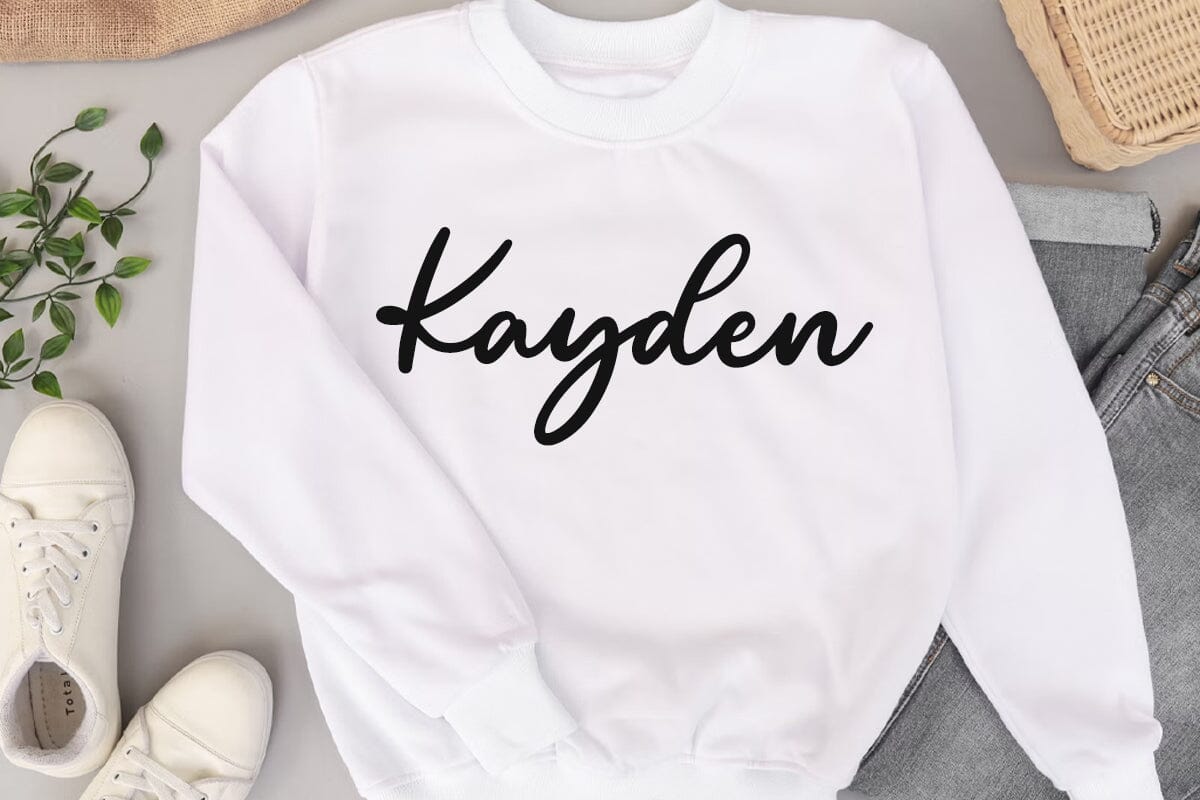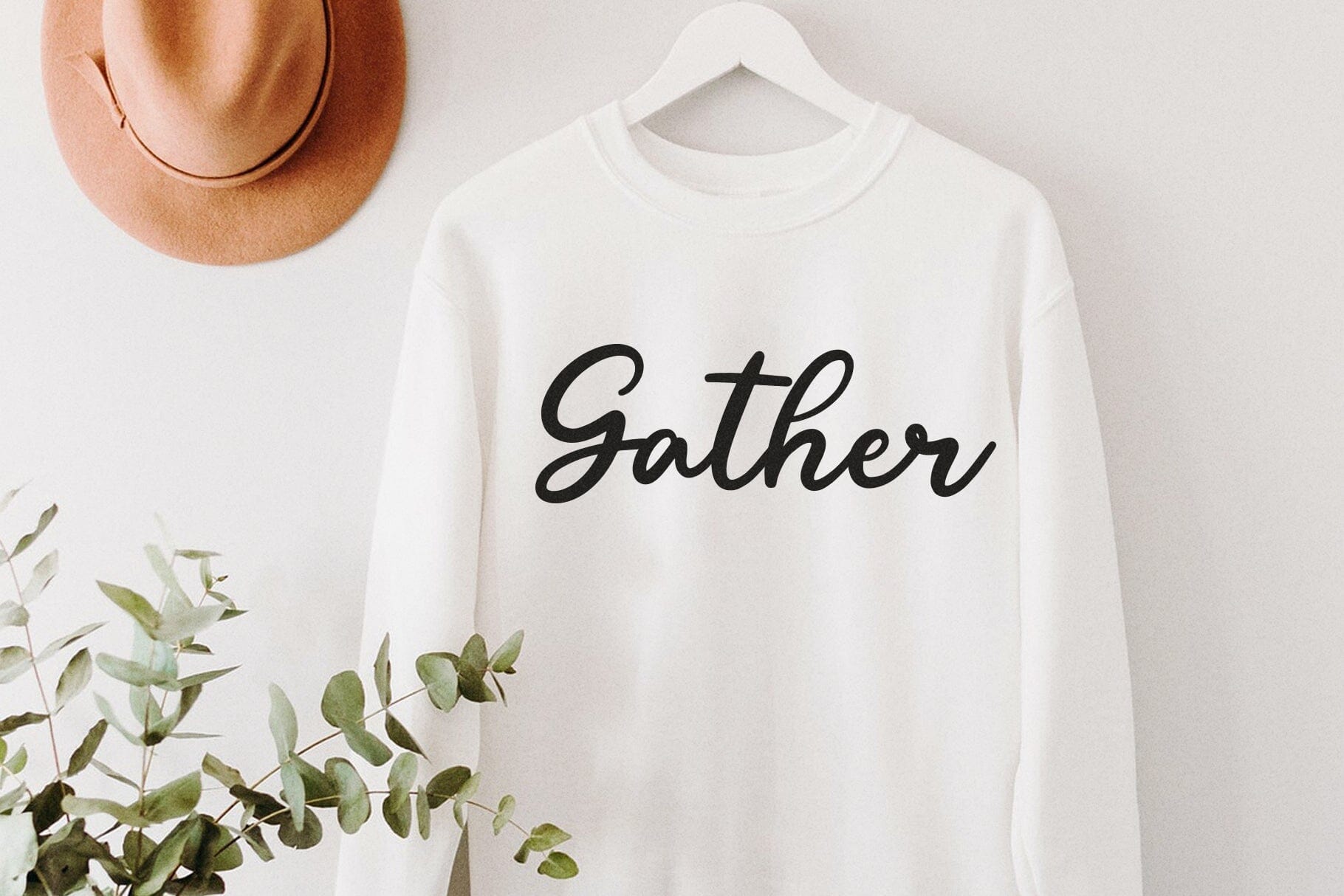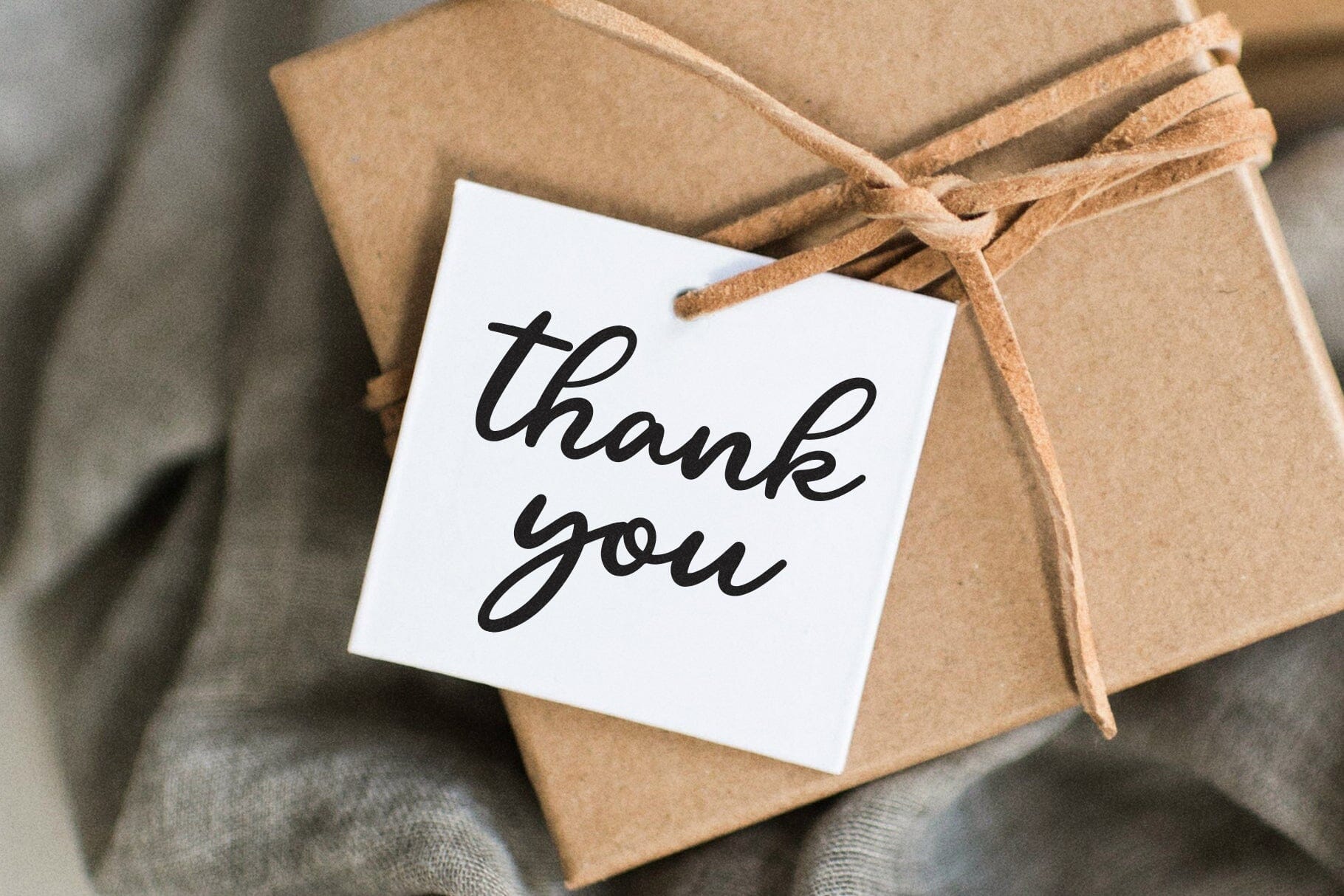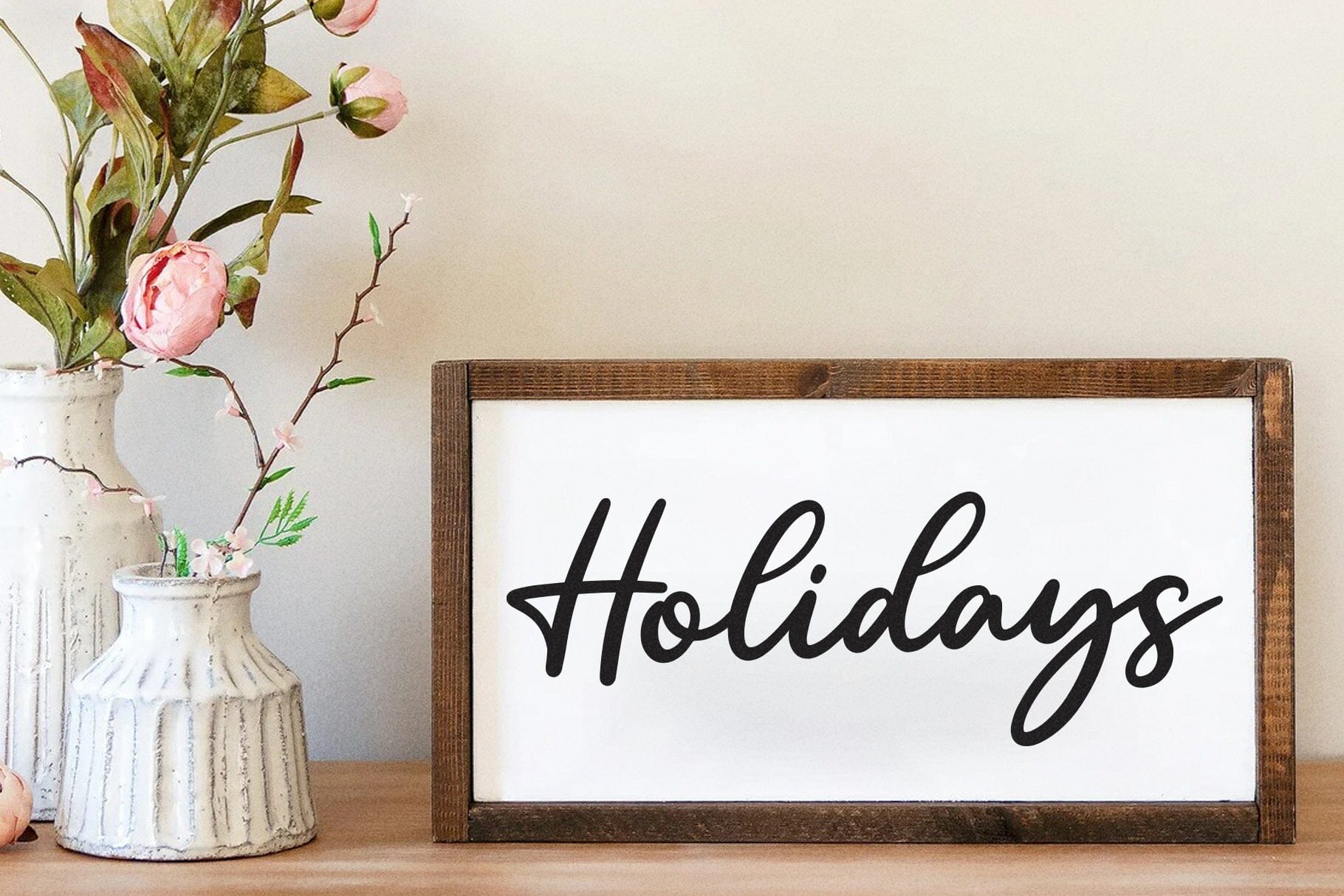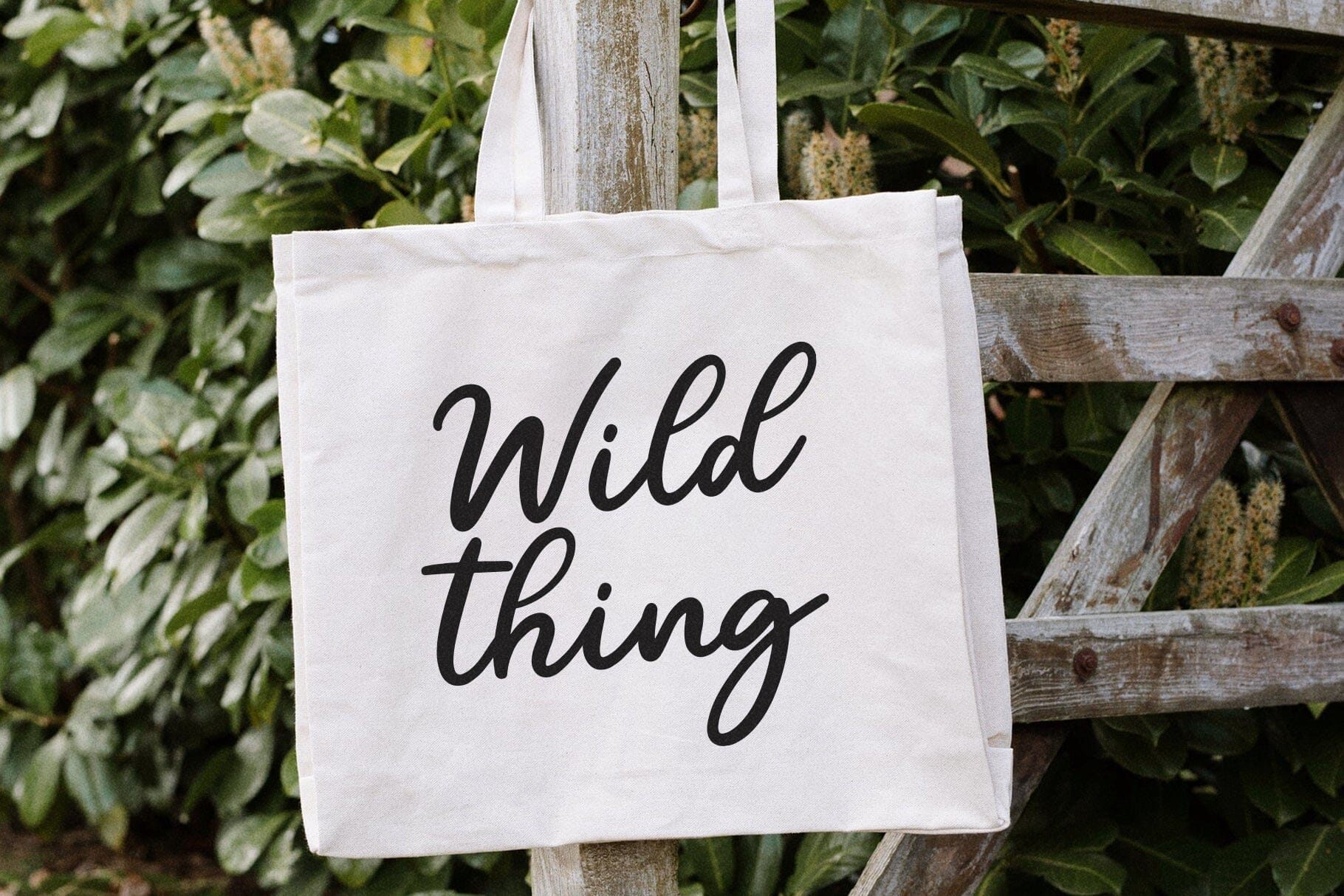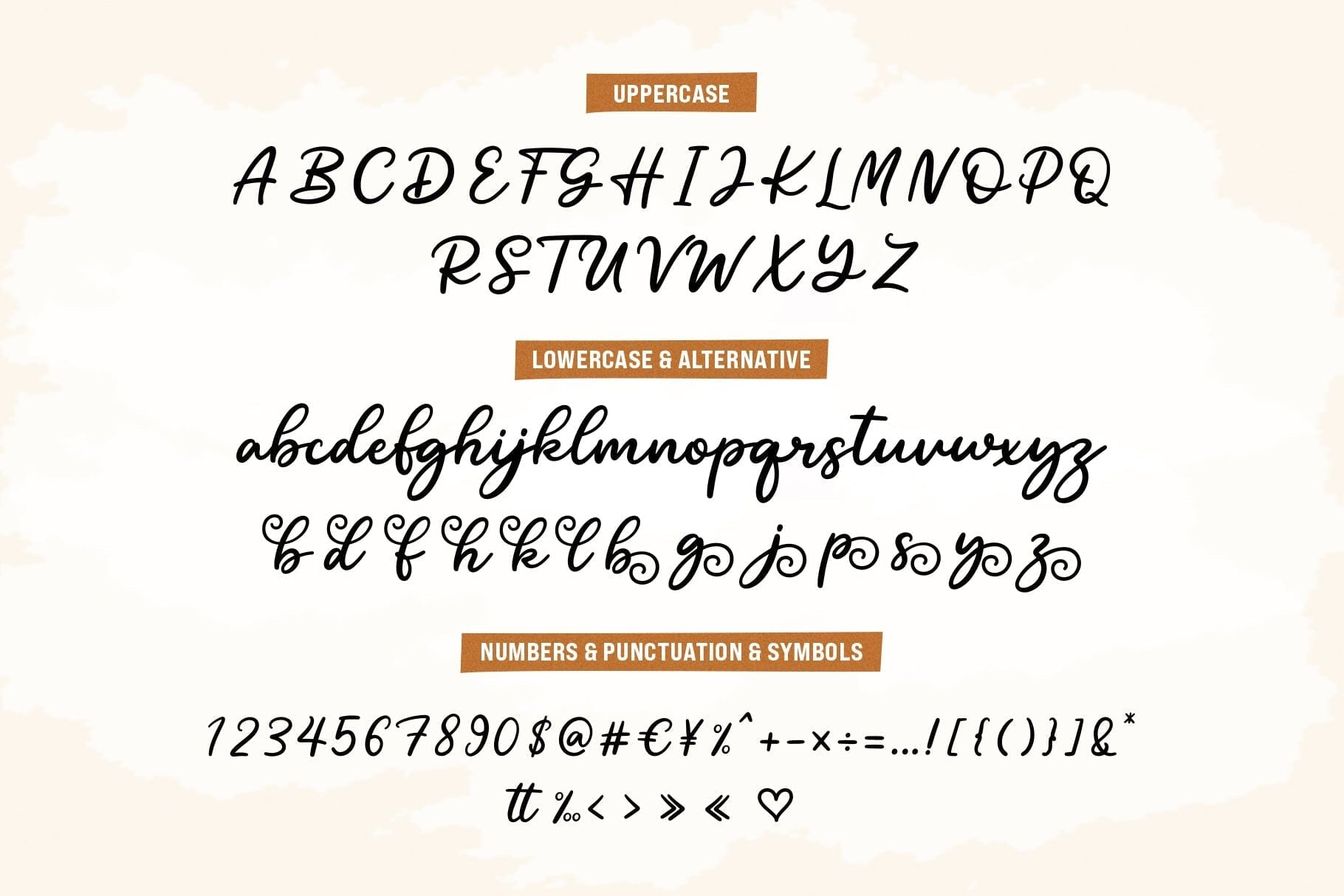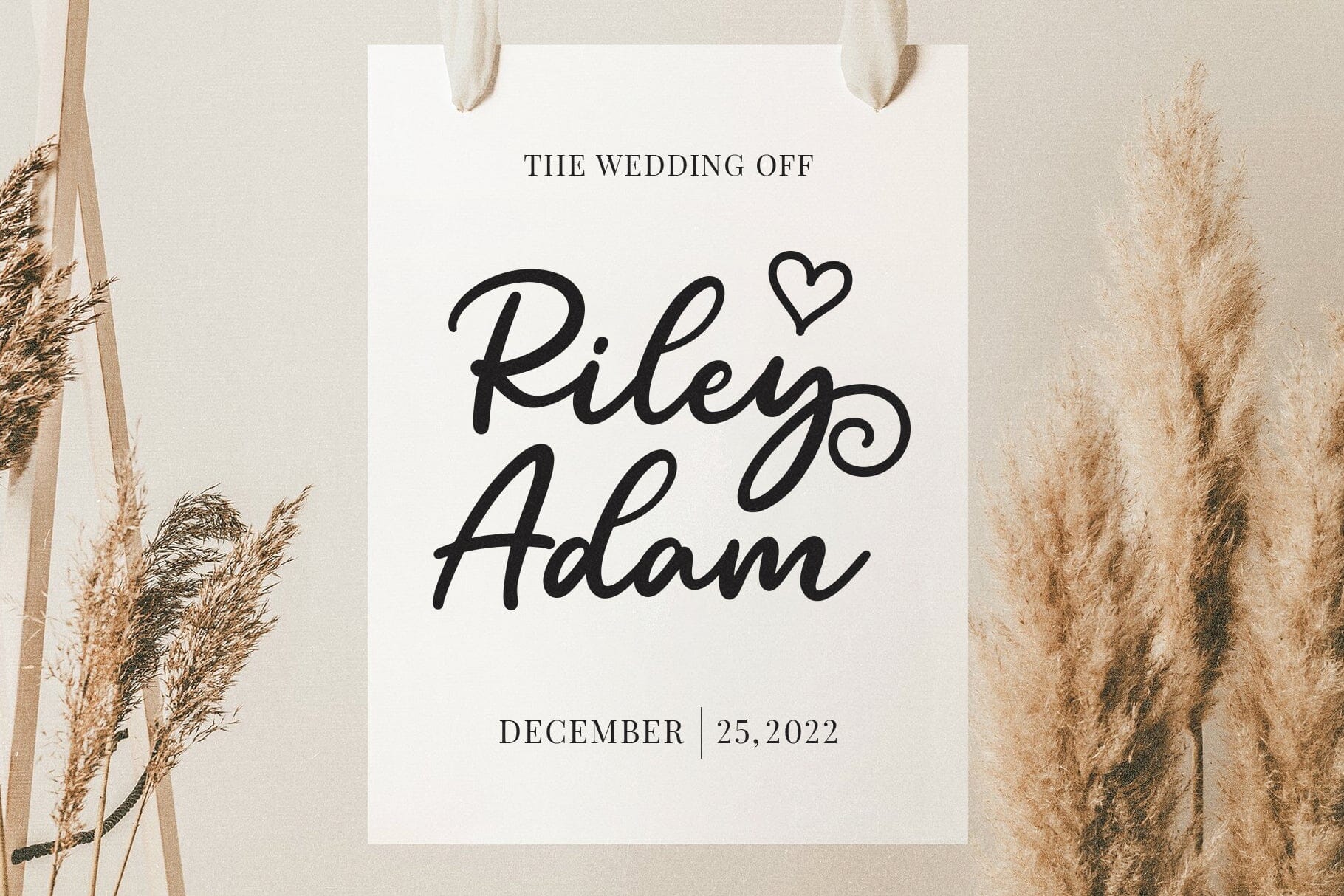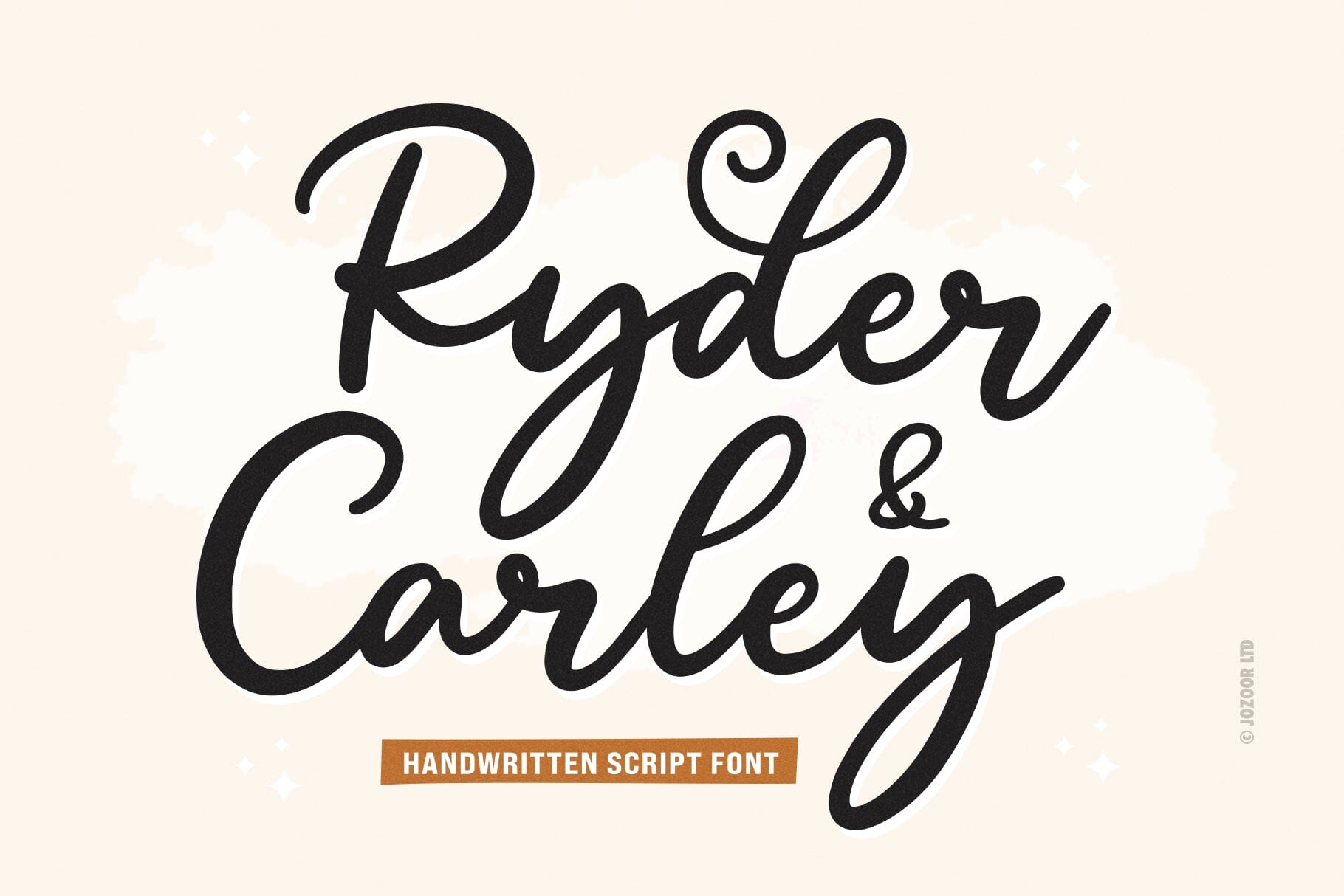
Ryder Carley – Script Font
Ryder Carley is a lovely, stylish, and flowing handwritten script font. It has beautiful and well-balanced characters and as a result, it matches a wide pool of designs. It is the best choice for wedding invitations, save the date cards, fine art papery, feminine branding, personal gift cards other romantic projects. You will get: OTF Font File. TTF Font File. SVG Font File. User’s Guide PDF file. Hope you enjoy, and happy designing 🙂 ♥ JOZOOR